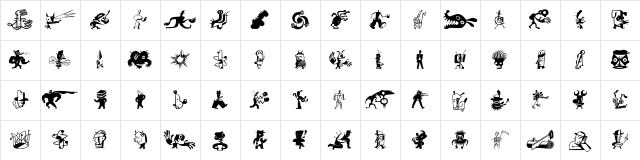
ZeitGuysOne One Free Font
ZeitGuysOne One
Style: One
Design Context for ZeitGuysOne
ZeitGuysOne is a composed and adaptable typeface that performs quietly and consistently across a wide range of design contexts.